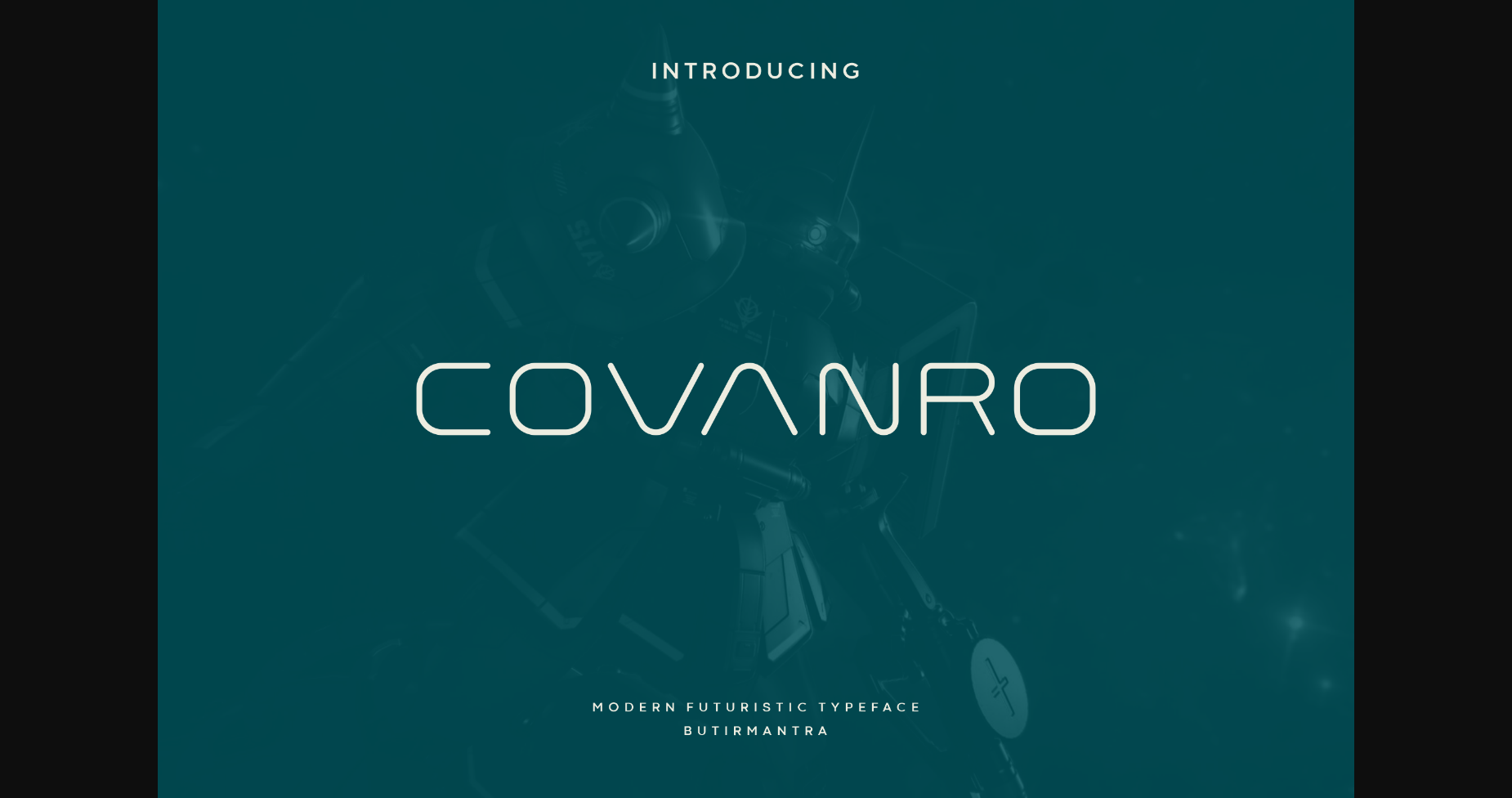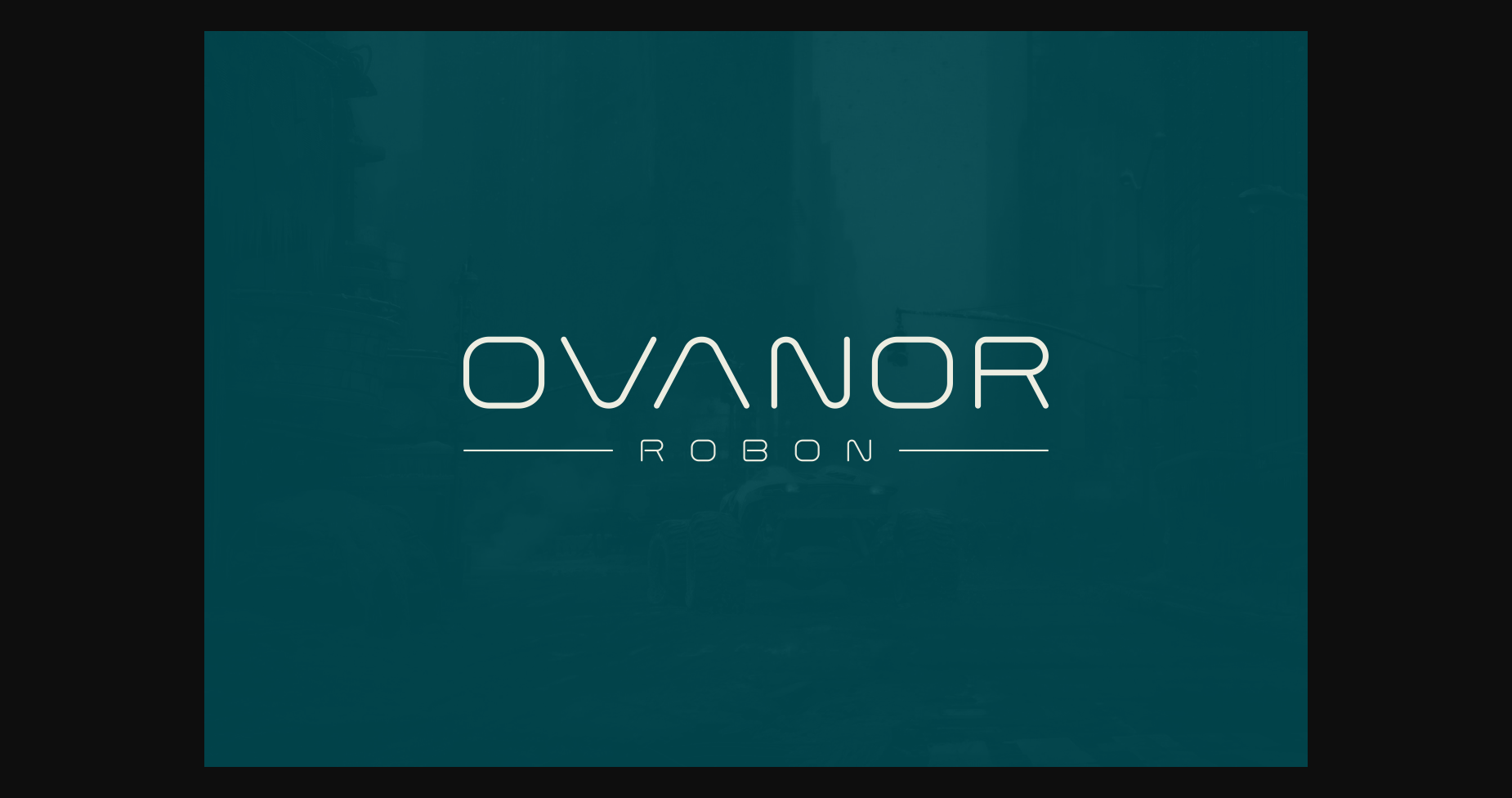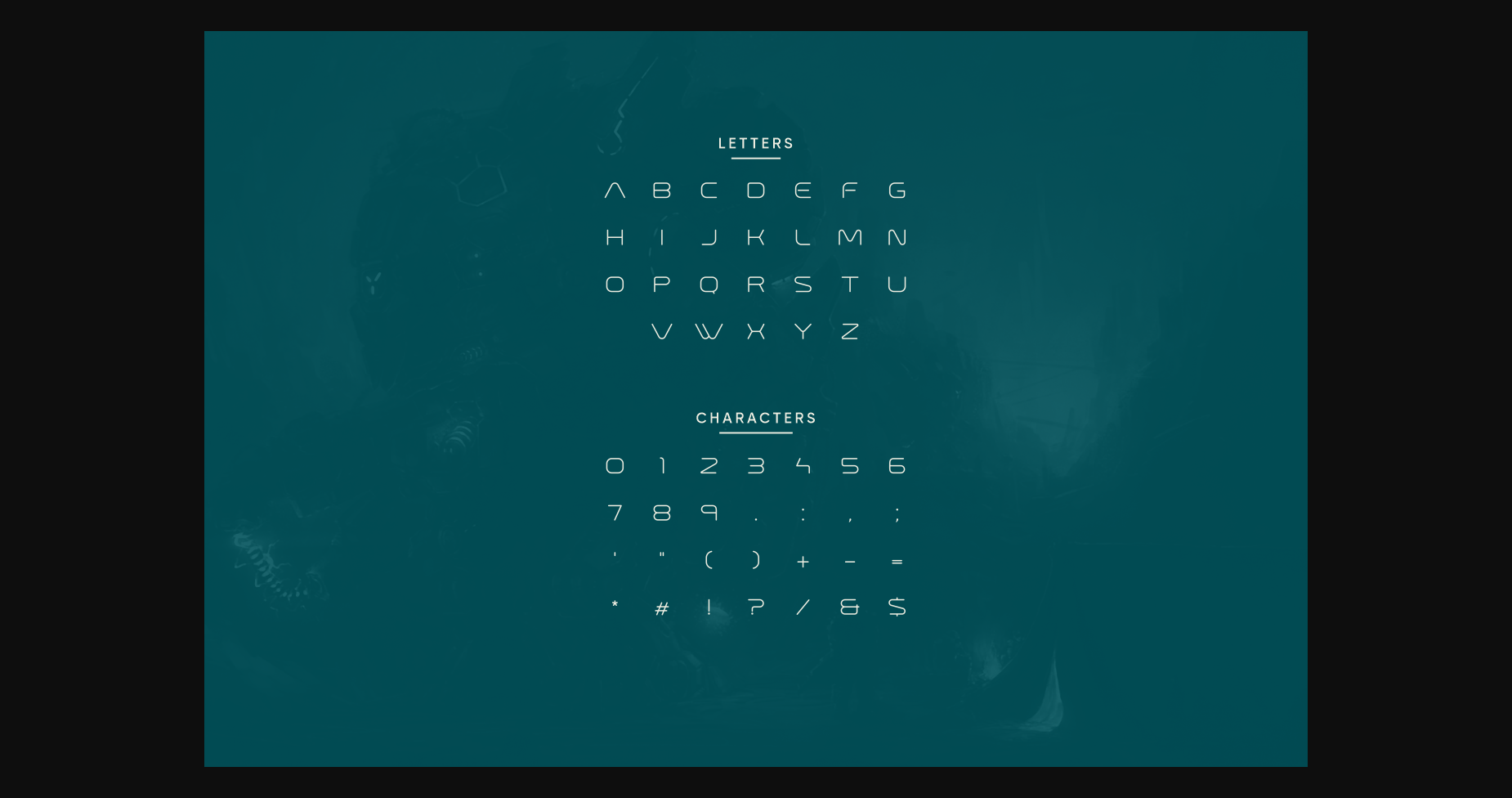
About Covanro Font
Covanro is a modern serif font with an amazing futuristic feel and thin shape that makes it look luxurious and elegant. It is perfect for making space themed event posters, brochures, magazines, logos, headlines or social media page covers.